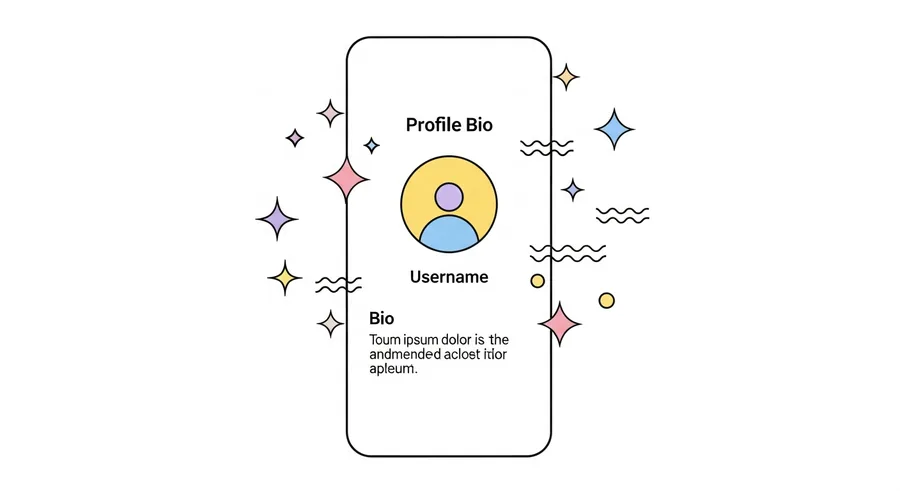
TikTok Doesn't Have a Font Setting โ But This Works Instead
If you've searched for "how to change font on TikTok," you've probably been disappointed. TikTok has no font setting in the app. Your bio and captions use TikTok's default font with no built-in way to change it.
What most popular creators are doing is not using a different font โ they're using Unicode characters that look like different fonts. These characters paste directly into your TikTok bio and captions and display correctly because TikTok supports the full Unicode character set, just like every other major platform.
How to Change Your TikTok Bio Font Right Now
- Go to fontb.com in your phone browser
- Type the text you want in your bio
- Browse the styles and tap the one you want to copy it
- Open TikTok โ tap Profile โ tap Edit Profile
- Tap the Bio field, long press, and paste
- Tap Save
Your bio now appears in the style you chose โ visible to everyone who views your profile.
Best Font Styles for TikTok
The best styles for TikTok depend on your content type and vibe. Here are the ones that look best and have the strongest support across devices:
For a clean, professional look
๐๐ผ๐น๐ฑ ๐ฆ๐ฎ๐ป๐-๐ฆ๐ฒ๐ฟ๐ถ๐ณ โ This is the style most commonly used by creators who want their bio to feel put-together and authoritative without being over the top. It reads clearly on small screens.
For an aesthetic or feminine look
๐ฎ๐ธ๐๐พ๐ ๐ / ๐๐๐๐๐พ๐๐ โ The flowing script style is extremely popular for lifestyle, beauty, fashion, and wellness creators. It gives bios an elegant, handwritten feel that fits the "soft" aesthetic.
For a minimal or monochrome aesthetic
๐ผ๐๐๐๐๐๐๐๐ โ The fixed-width typewriter style looks distinctive and different. It works well for tech creators, photographers, and anyone going for a clean minimal aesthetic.
For a bold statement
๐๐ฏ๐๐จ๐ฑ๐ฒ๐ฏ / ๐๐ฌ๐ฑ๐ฅ๐ฆ๐ โ The blackletter style is eye-catching and distinctive. Popular with music artists, streetwear accounts, and anyone who wants their name to stand out.
Using Styled Fonts in TikTok Captions
The same process works for captions. A popular pattern is to bold the first line of your caption โ the hook that shows before "see more" โ to make it stand out in the feed. You can generate the bold version of just your hook line and keep the rest of the caption in plain text for readability.
Font Styles to Avoid on TikTok
- Zalgo/Glitch text โ The extreme combining-character glitch effect. Hard to read and looks like an encoding error to many viewers.
- Very decorative styles with many symbols โ These look cluttered on small phone screens.
- Mixing too many different styles โ Using three different font styles in one bio looks chaotic. Pick one and use it consistently.
Does TikTok Ever Remove Styled Fonts?
TikTok has not removed support for Unicode text, and it's unlikely to do so โ Unicode is fundamental to how text works on all digital platforms. Many of the most popular creators on TikTok use styled bio text. The characters are standard and there's nothing in TikTok's terms against using them.